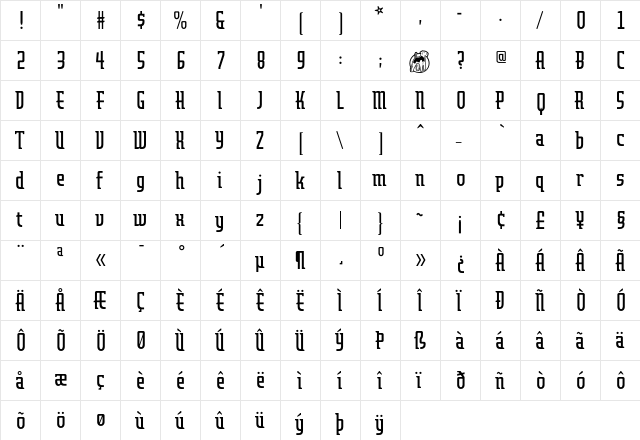
Airedale Bold
Design Context for Airedale Typeface
Airedale is a composed and adaptable typeface that performs quietly and consistently across a wide range of design contexts. The heavy weight commands attention and anchors typographic hierarchies.